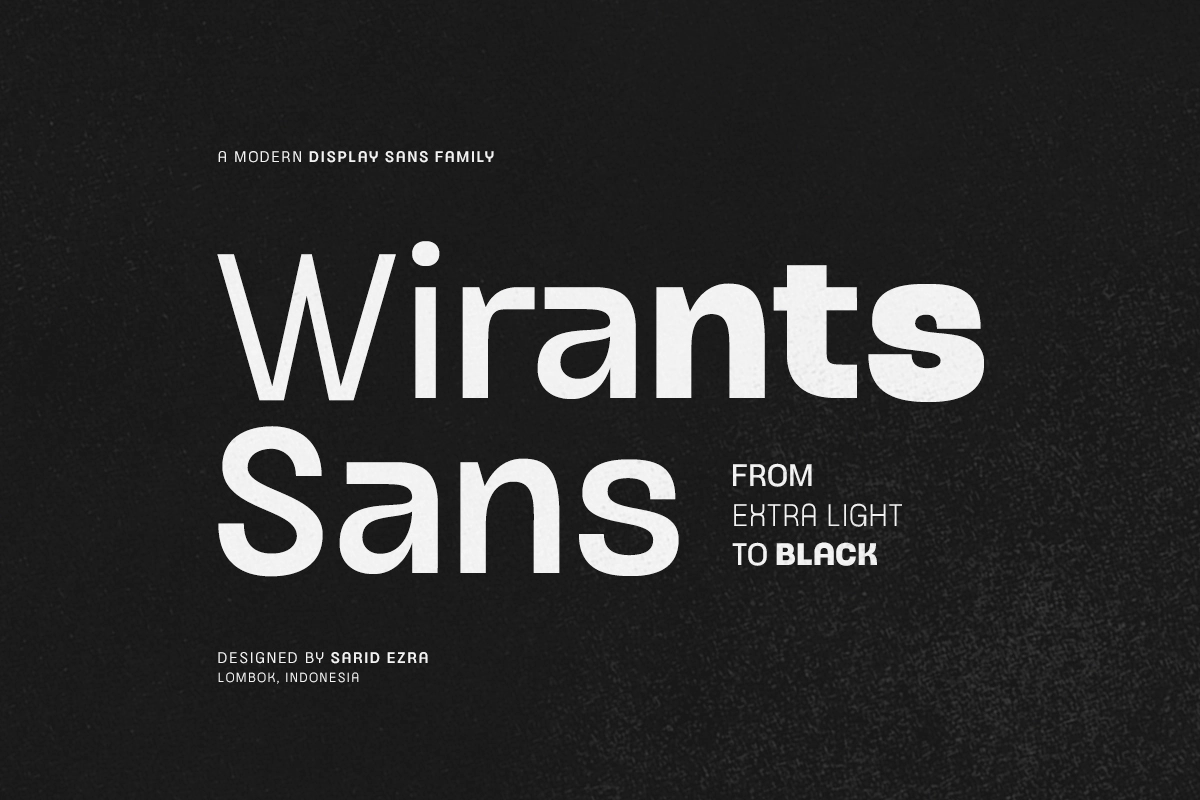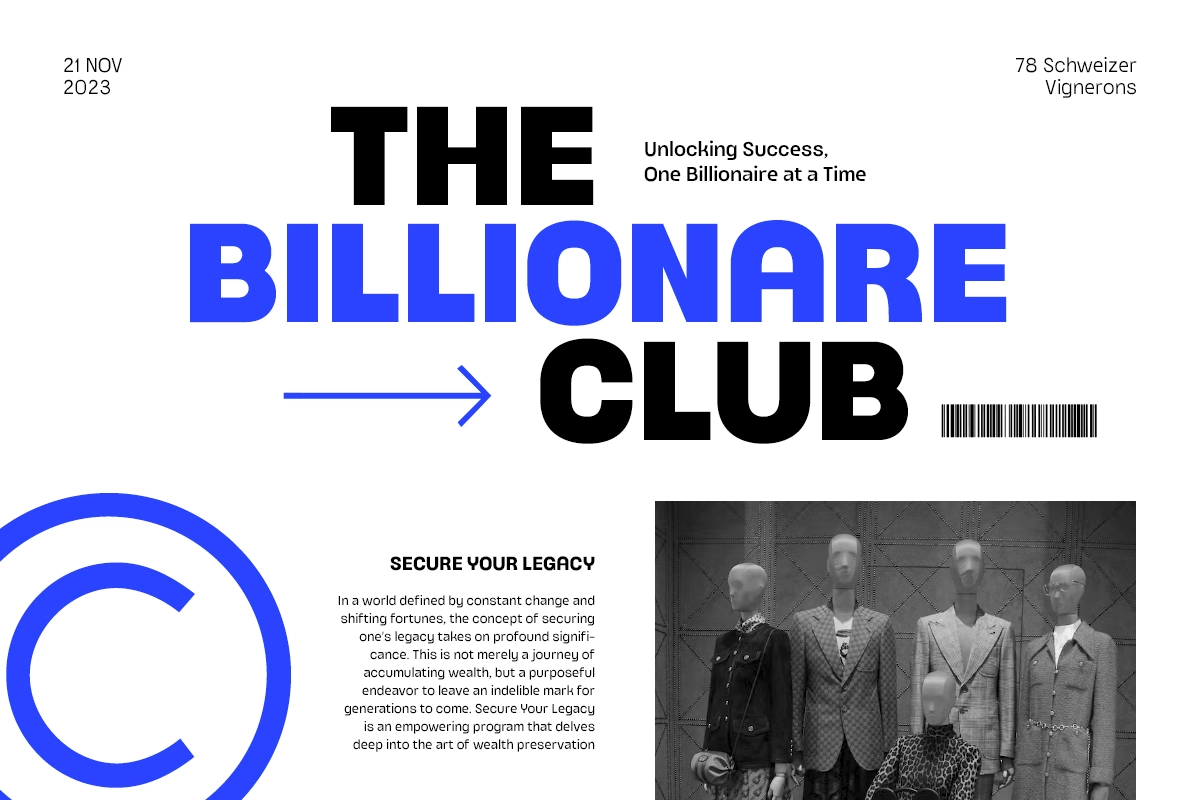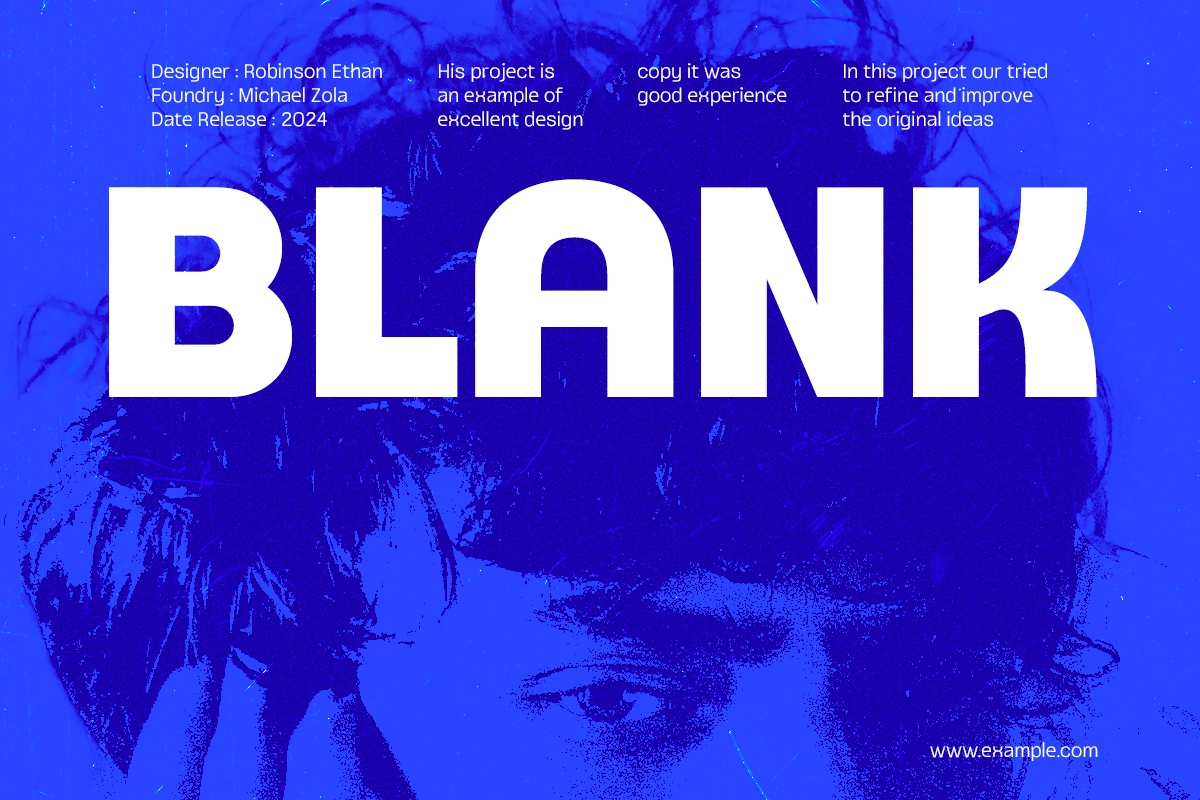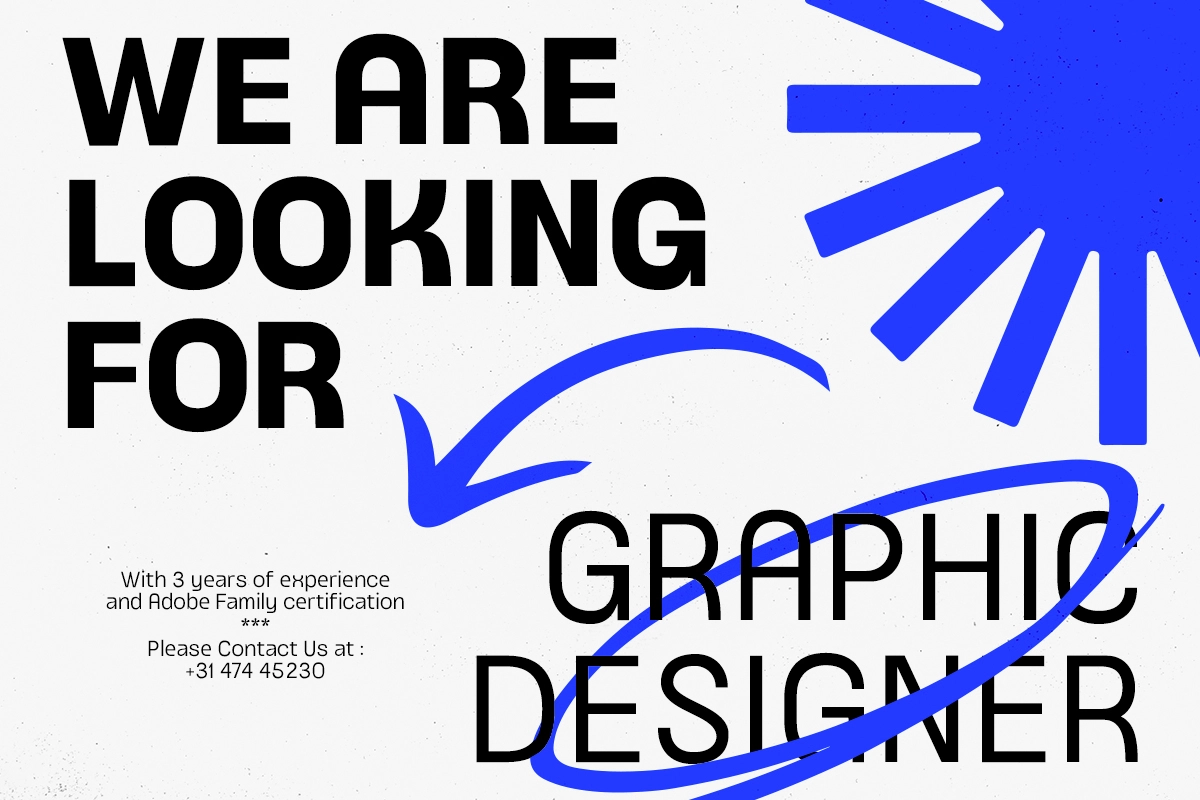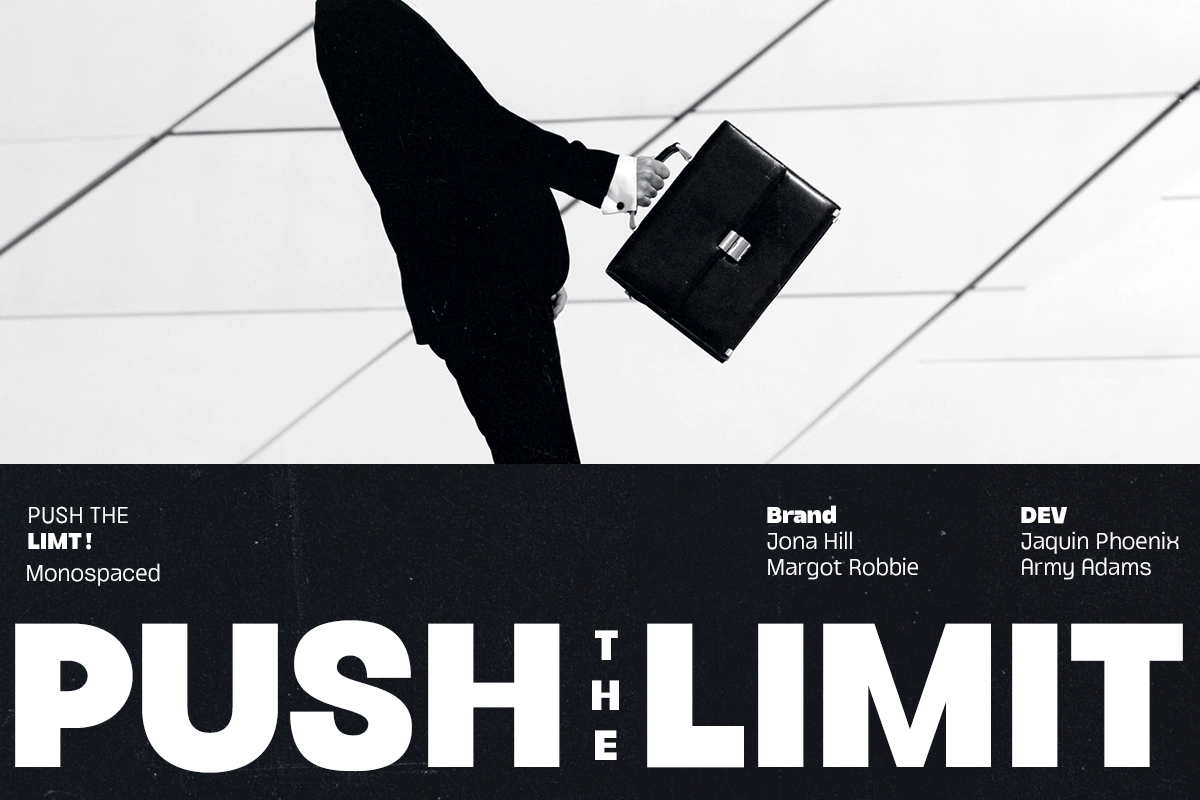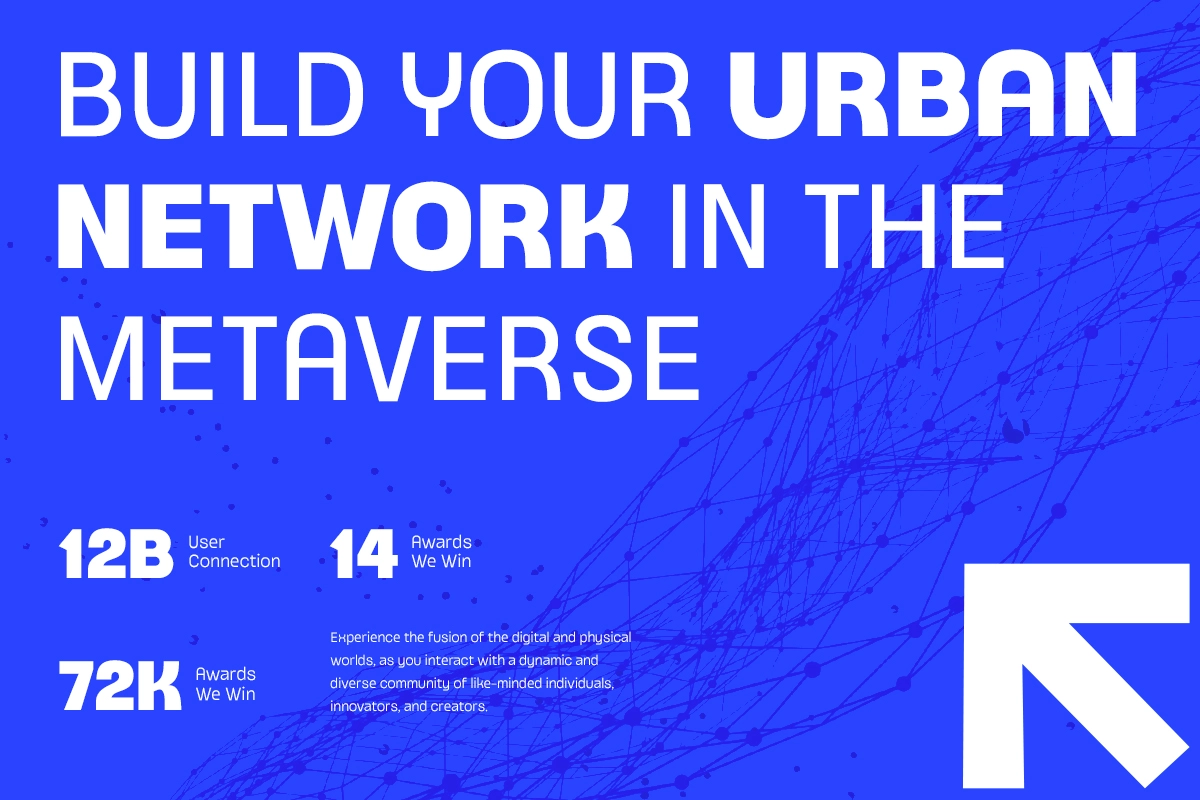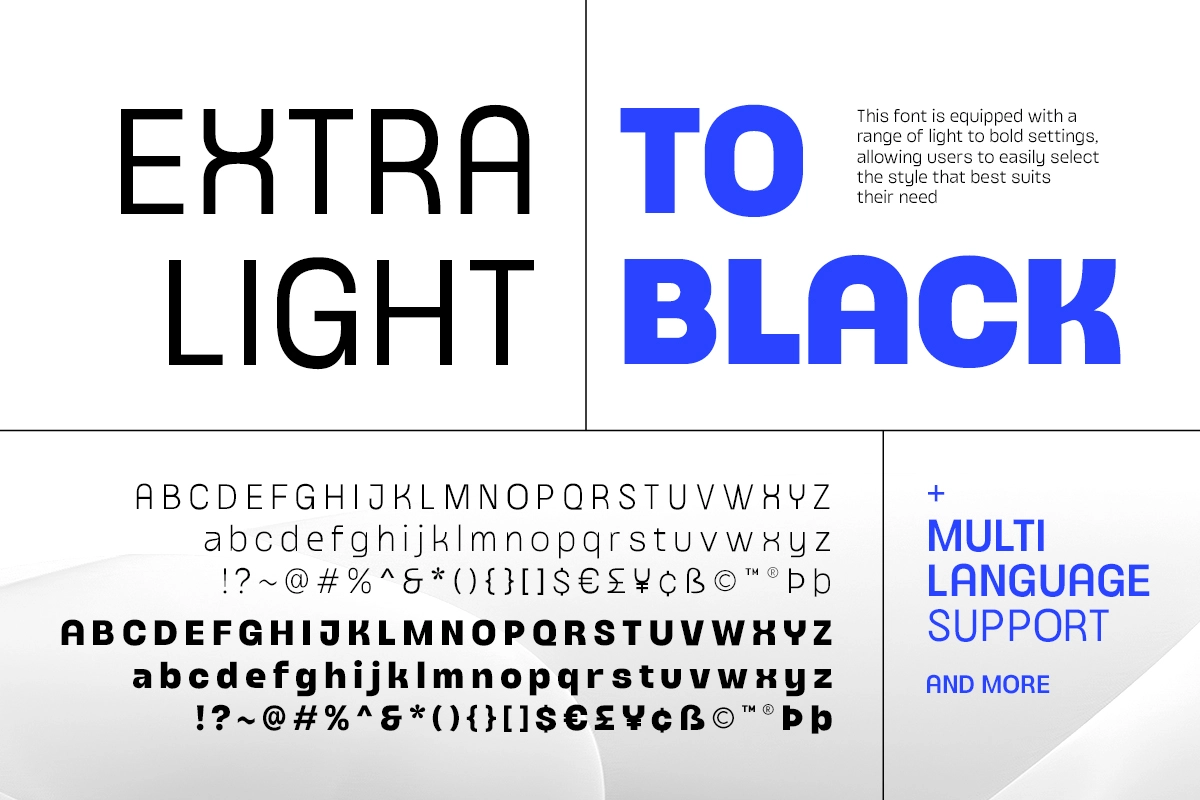
Wirants - Display Sans Family
Wirants is a modern sans-serif font family, ranging from Extra Light to Black, embodies a sleek, contemporary aesthetic with its clean lines and versatile design. With weights from Extra Light , perfect for subtle, minimalist designs, to Black , which commands attention in bold headlines or impactful logos, these fonts offer a wide range of applications—from body text and subheadings to titles and user interfaces.
This adaptability, combined with a modern appeal, makes them ideal for diverse contexts such as branding, poster, editorial design, and digital platforms. This font also support multi language.